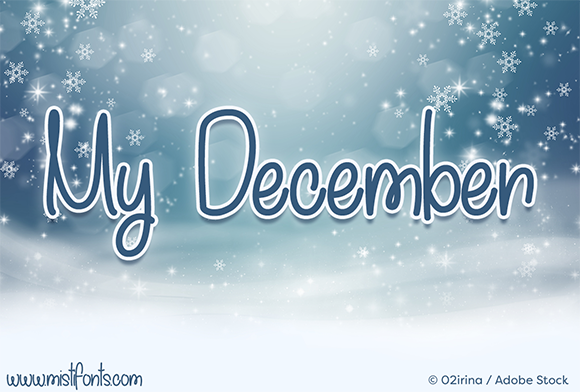
My December Font
Embrace the joyous spirit of the holidays with My December Font, a captivating script font family crafted by the talented Misti. This charming handwritten sans serif font exudes a festive vibe, making it the perfect choice for a myriad of design and craft projects that demand a touch of holiday magic.
Immerse yourself in the whimsical world of My December Font. Let its playful characters dance across your screens, bringing warmth and cheer to your holiday creations. Its meticulously crafted curves and elegant swashes evoke the essence of the season, adding a touch of enchantment to your designs.
With My December Font, the possibilities are endless. Create heartwarming holiday cards that convey your heartfelt sentiments, design festive posters that spread joy throughout your community, or embark on personalized gift tags that add a personal touch to your presents. Unleash your creativity and let this font guide you as you craft unique and captivating holiday designs that will leave a lasting impression.
My December Font is not merely a font; it's an invitation to celebrate the season with creativity and style. Its versatility extends beyond holiday projects, making it a delightful choice for invitations, branding, and any project that calls for a touch of whimsy and cheer.
So, don't let the holiday spirit pass you by. Embrace the magic of My December Font and transform your designs into enchanting works of art. Let this font be your creative companion as you spread joy and festivity this holiday season.